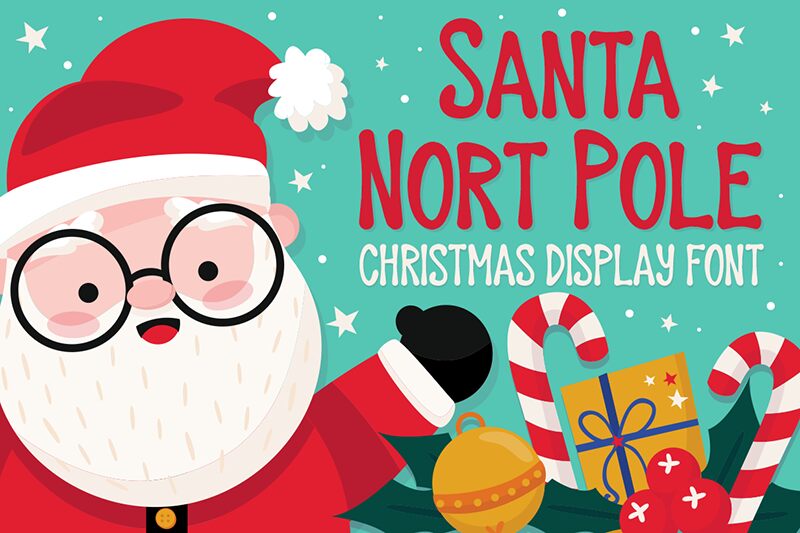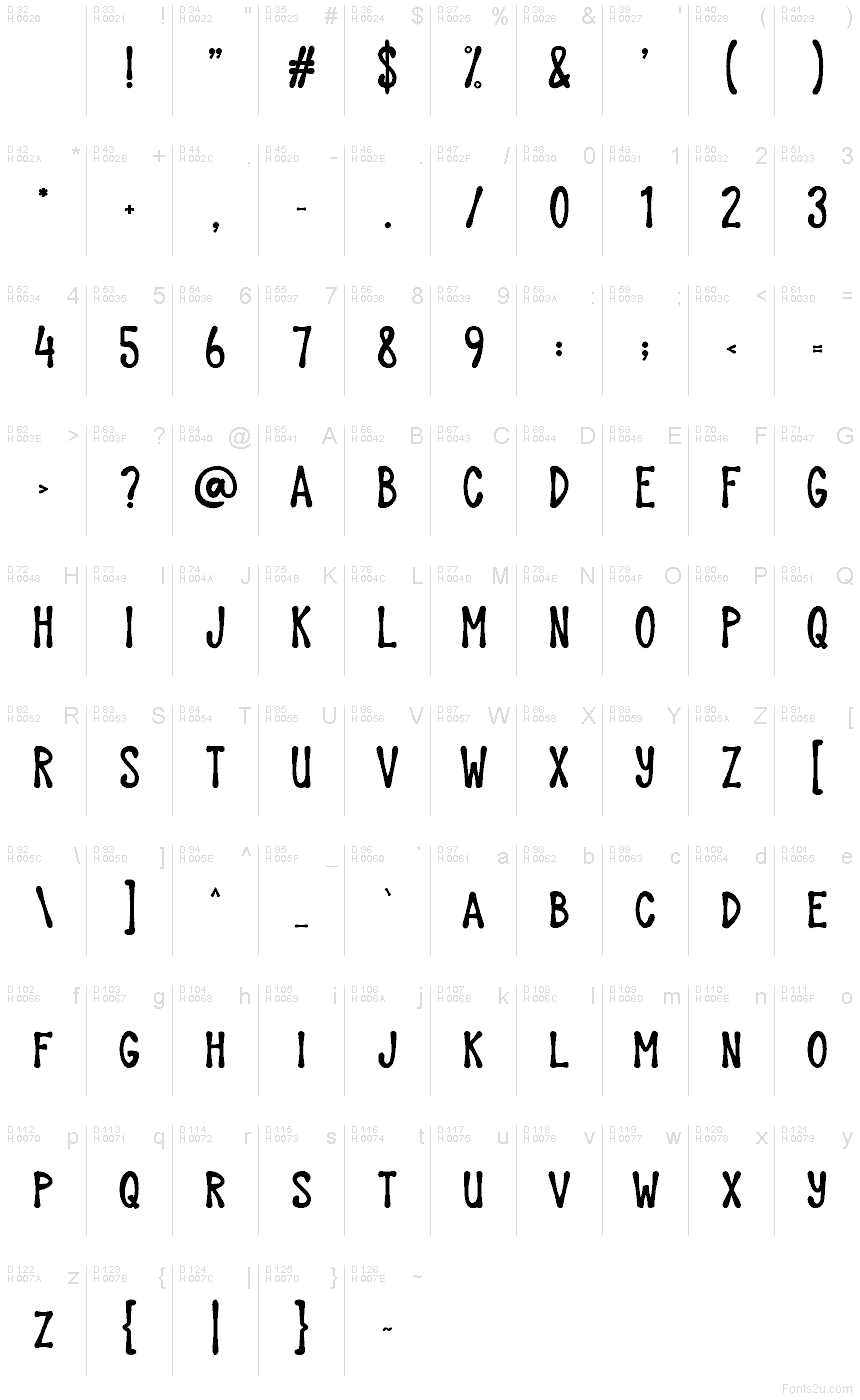
Santa Nort Pole
Santa Nort Pole font by Gilang Ternadho is a free Christmas holiday typeface that looks like it’s been hand-lettered on a frosty shop window. The tall, slightly wobbly letters feel cozy and playful, with inky, rounded strokes that suggest candy canes, wrapping paper doodles, and kids’ wish lists all at once. It has a casual, handmade rhythm that instantly says “festive” without feeling stiff or overly ornamental.
This free font shines on greeting cards, gift tags, party invitations, seasonal posters, social media graphics, and kids’ activity sheets. Using Santa Nort Pole at larger sizes lets its quirky shapes and uneven bounce really come through. Pair it with a clean, simple sans serif for body copy so the whimsical headlines stay readable and stand out like a marquee on a snowy main street.